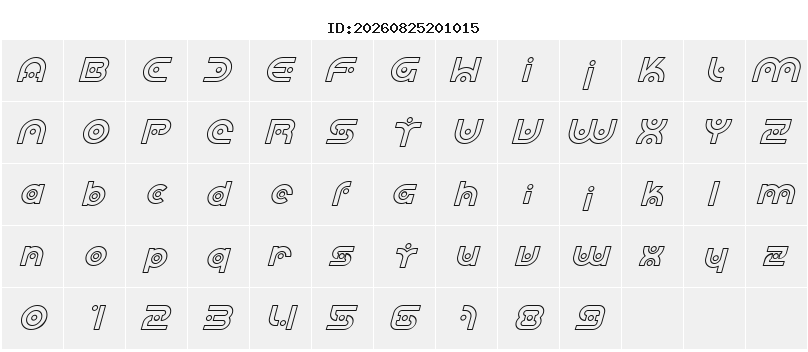
SF Planetary Orbiter Outline Preview
• Font Name: SF Planetary Orbiter Outline
• Full Font Name: SF Planetary Orbiter Outline Italic
About SF Planetary Orbiter Outline.ttf
SF Planetary Orbiter Outline.ttf is a modern, elegant sans-serif font designed for ultimate readability and visual harmony. Perfect for branding, headlines, web design, and print materials.